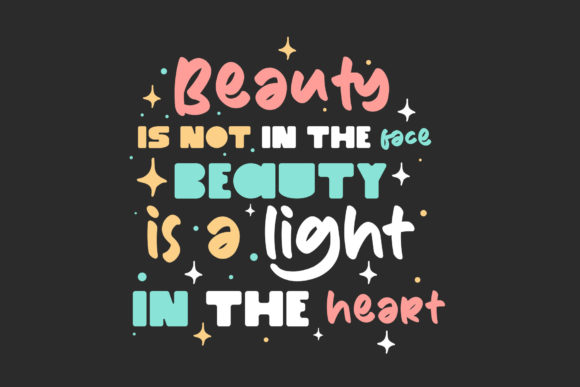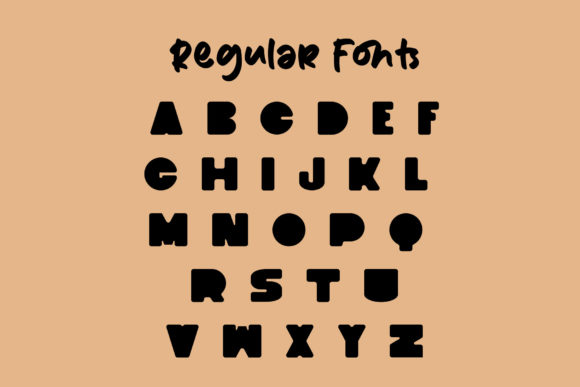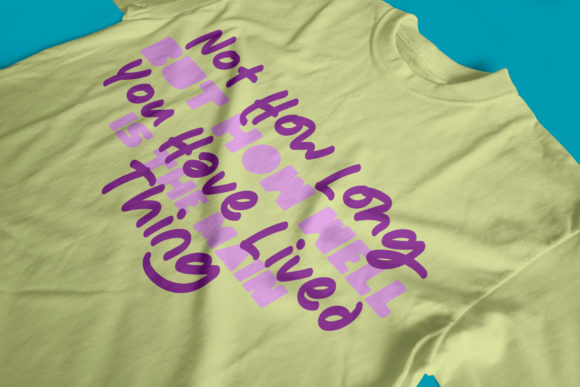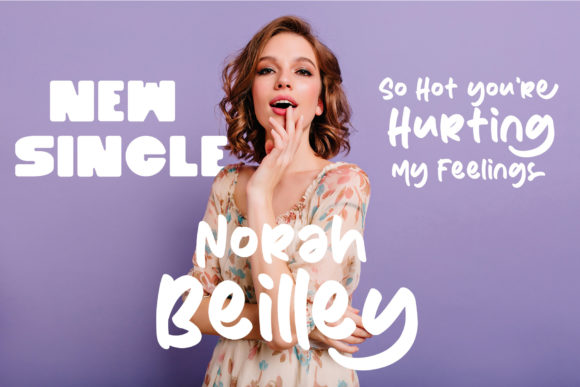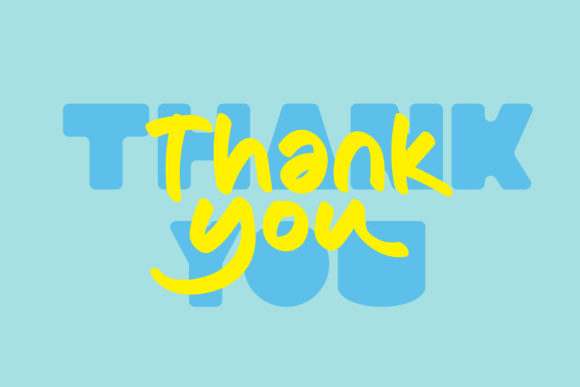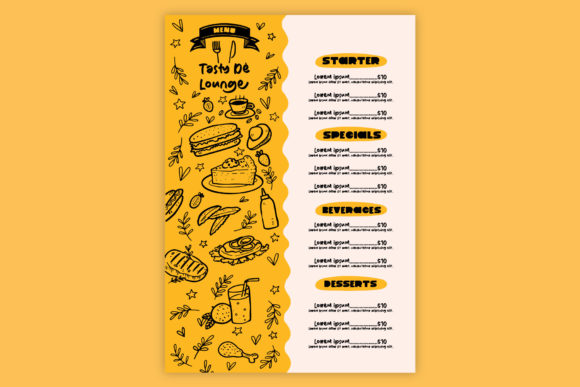
About Playdates Font
Playdates consists of two fonts designed to complement each other perfectly. Together or apart, these fonts are ideal for adding a chic and cheery touch to your crafts. This font is PUA encoded which means you can access all glyphs and swashes with ease!